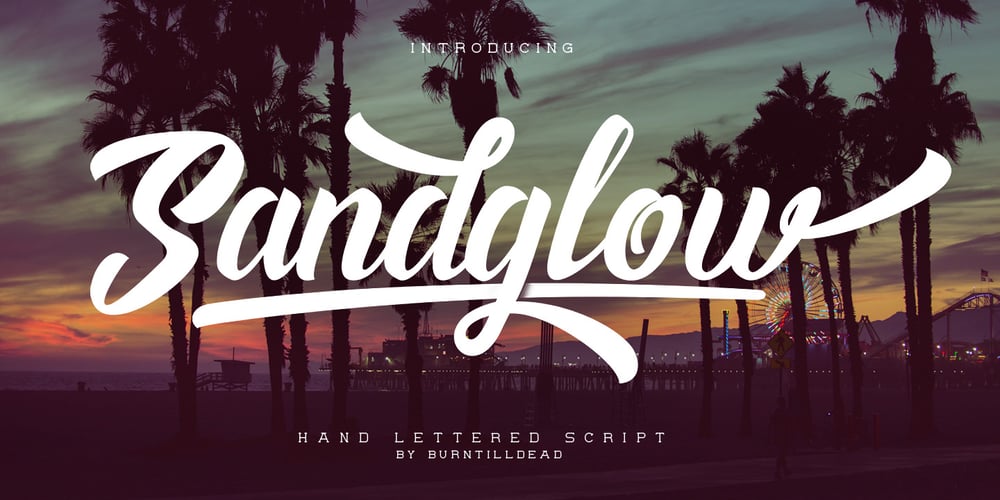
Sandglow Font Family was designed by Eric Kurniawan and published by Burntilldead. Sandglow contains 3 styles and family package options. Sandglow is a fancy hand lettered script typeface with a clear style, good mood, and dramatic movement. It allows you to create beautiful hand-made typography in an instant. It’s suitable for headlines, logotype, editorial design, branding, letterhead, poster, apparel design, product packaging, label or anything that need handlettering style. Comes with many variations on each character, including uppercase, lowercase, numerals & punctuation, stylistic styles, ligatures, discretionary ligatures, and titling. You will also discover extras swash added to give that finishing touch to your texts.